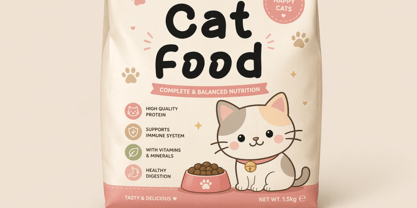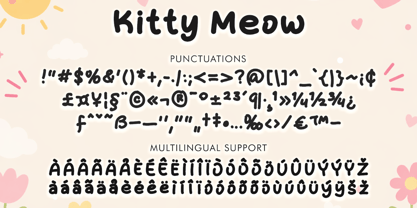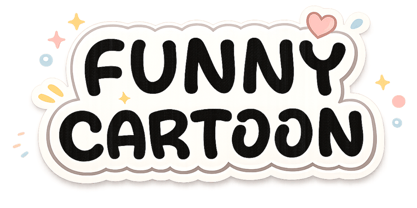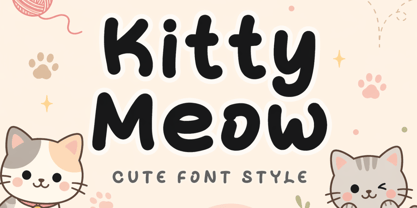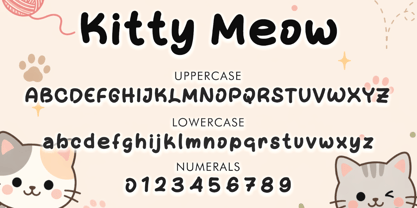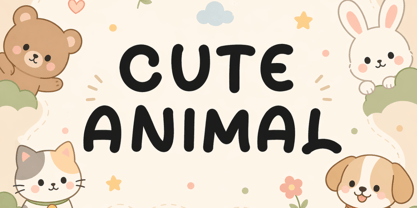
Kitty Meow
by Yoga Letter
The Kitty Meow Font Family was designed by Isroni Yoga Prasetya and published by Yoga Letter. Kitty Meow contains 1 styles. More about this family
“Kitty Meow” is a cute and playful display font. This font is equipped with uppercase, lowercase, numerals, punctuation, and multilingual support. Very suitable for posters, logos, children’s toys, banners, stickers, branding, animals, book covers, film titles, cats, comics, cartoons, summer, spring, Easter, Christmas, back to school, holidays and others.